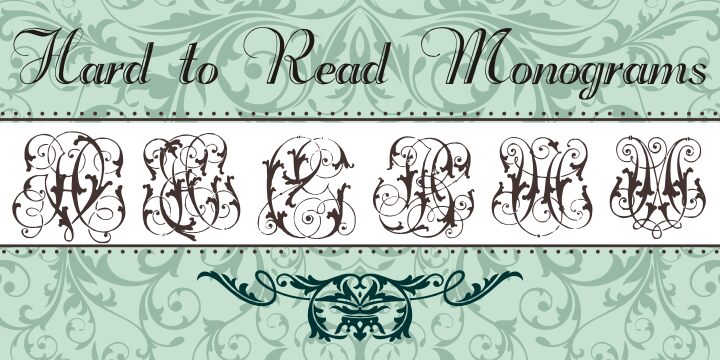
Hard to Read Monograms Two by Paulo W. is a free Gothic initials font built around densely interlaced letterforms and lavish penwork. Heavy black strokes give each character a firm skeleton, then fine looping flourishes cross through the interior and spill beyond it, recalling ornate ciphers, engraved stationery, and nineteenth-century decorative initials.
Heritage brands and wedding clients are the clearest audience. The elaborate forms suit invitations, luxury packaging, book covers, and event graphics because a single initial can function as lettering, ornament, and an illustrated emblem, with its surrounding curls becoming part of the page's decorative artwork instead of ordinary text.